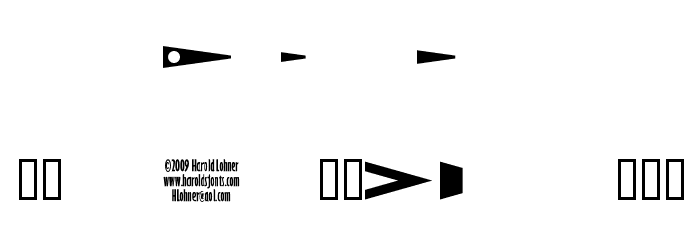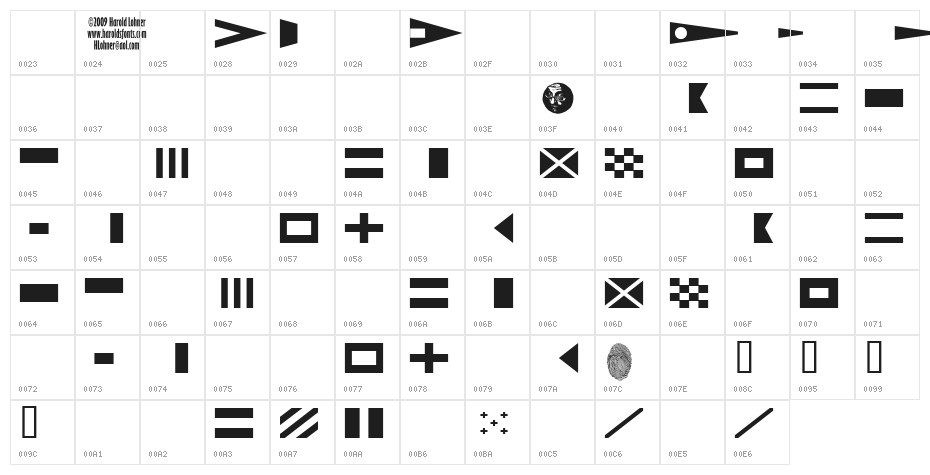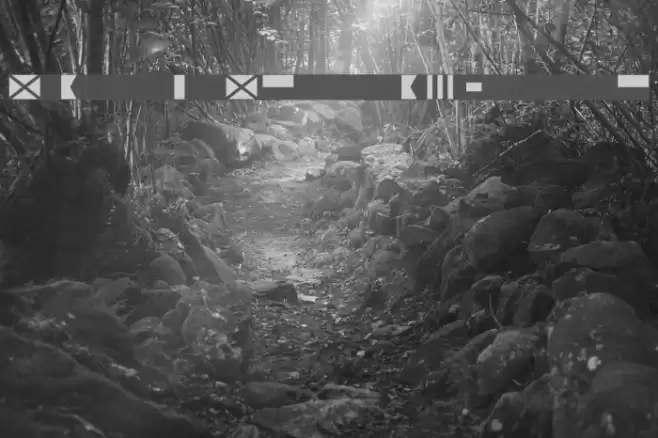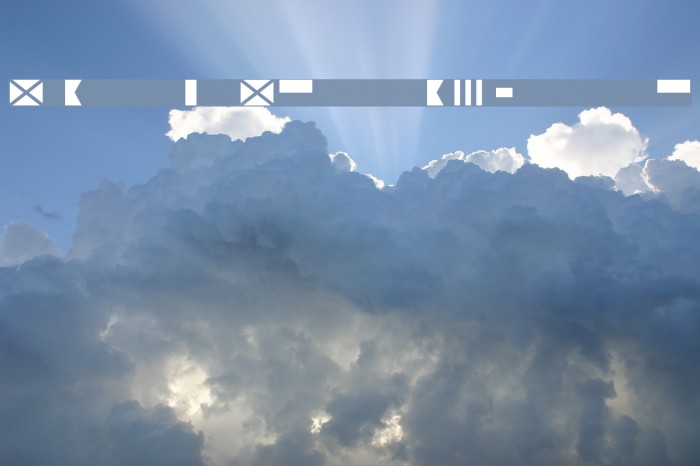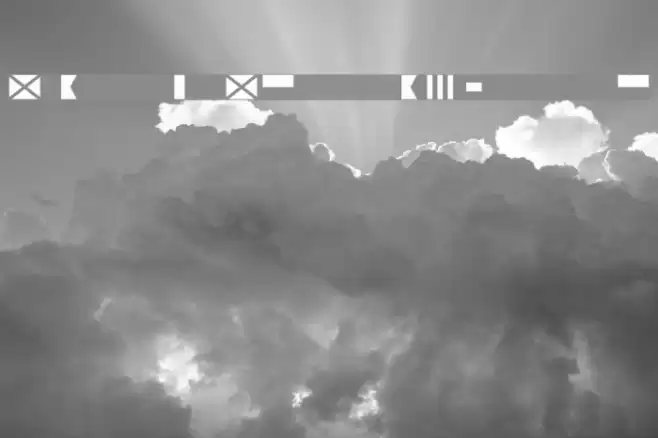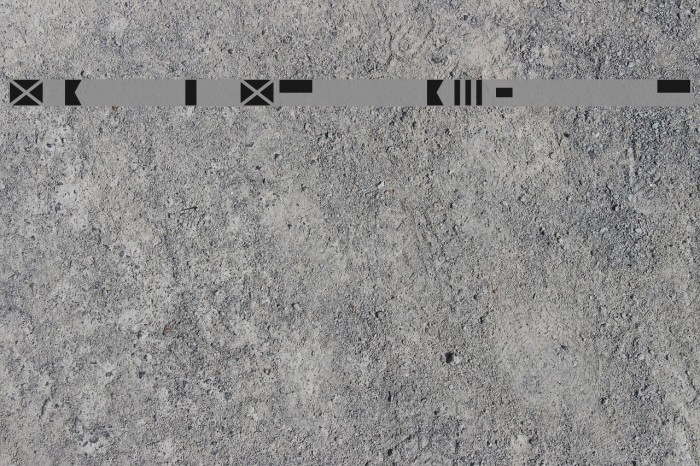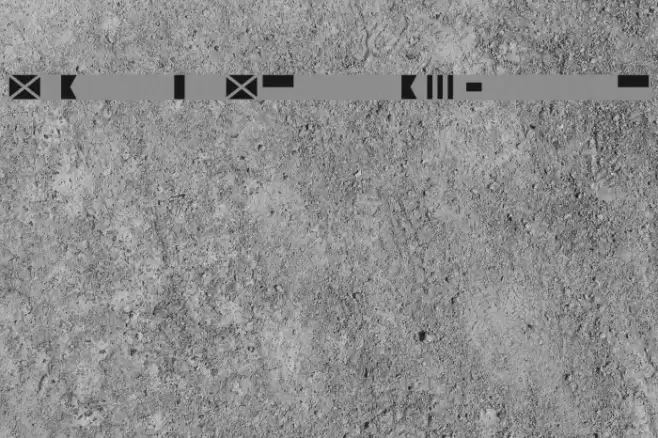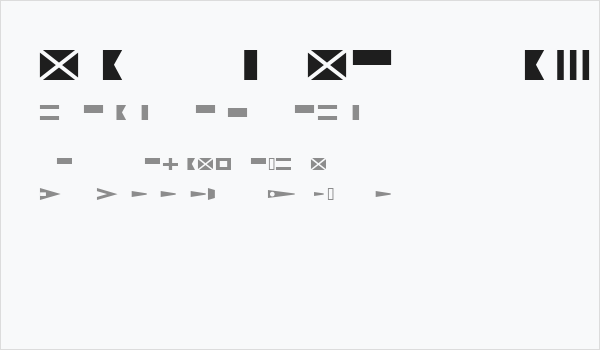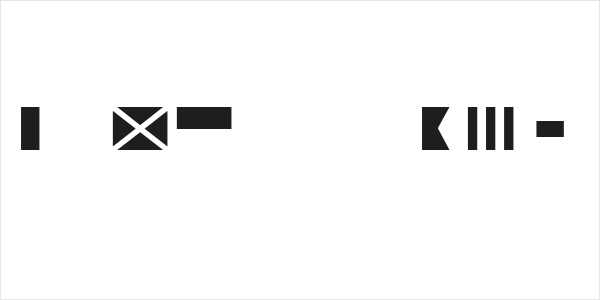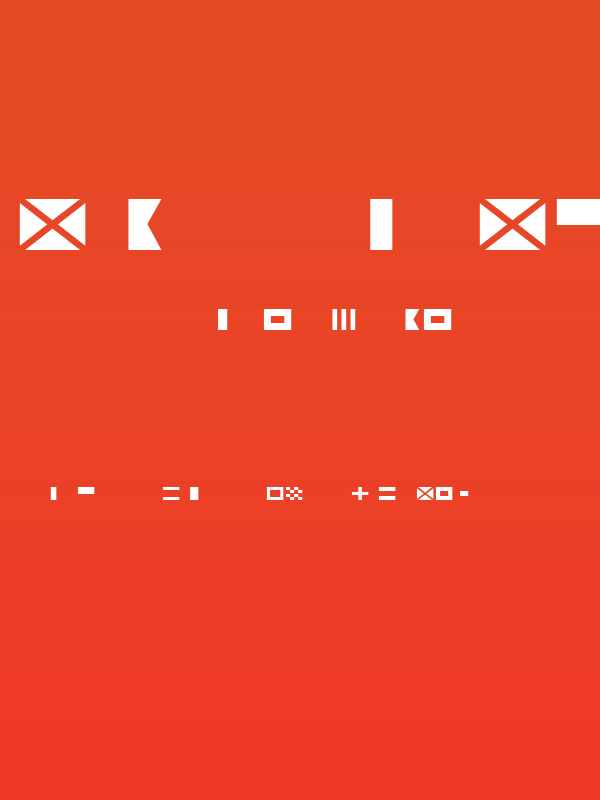
Maritime Flags Blue Font
Maritime Flags Blue Description
This design features a series of geometric shapes and patterns that resemble maritime signal flags. Each character is represented by a unique combination of lines, squares, and triangles, creating a bold and striking visual effect. The style is reminiscent of nautical themes, with a modern twist that emphasizes simplicity and clarity. The characters are evenly spaced, providing a balanced and organized appearance. The overall design is both functional and decorative, making it suitable for various creative applications.
| Use Case | Logos, Decorative elements |
| Proposed Projects | Ideal for nautical-themed designs, educational materials on maritime signals, or decorative projects that require a bold, graphic look. |